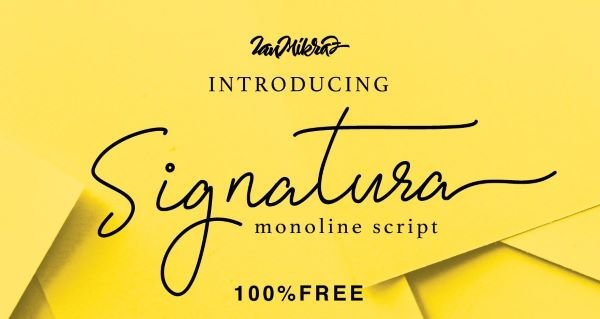
Signatura Monoline Font
Signatura Monoline Font is a beautiful handwritten script typeface created by Ian Mikraz that masterfully blends traditional copperplate elegance with contemporary design. Featuring 266 glyphs and 86 alternate characters, this versatile font offers extensive OpenType features including stylistic alternates and standard ligatures. Perfect for logotypes, signatures, quotes, apparel branding, wedding and greeting cards, Signatura Monoline Font delivers a classic, elegant touch with natural, personal authenticity that enhances every creative project.
Font Style: Handwritten, Script
Category: Casual, Cursive, Handwriting, Monoline, Signature